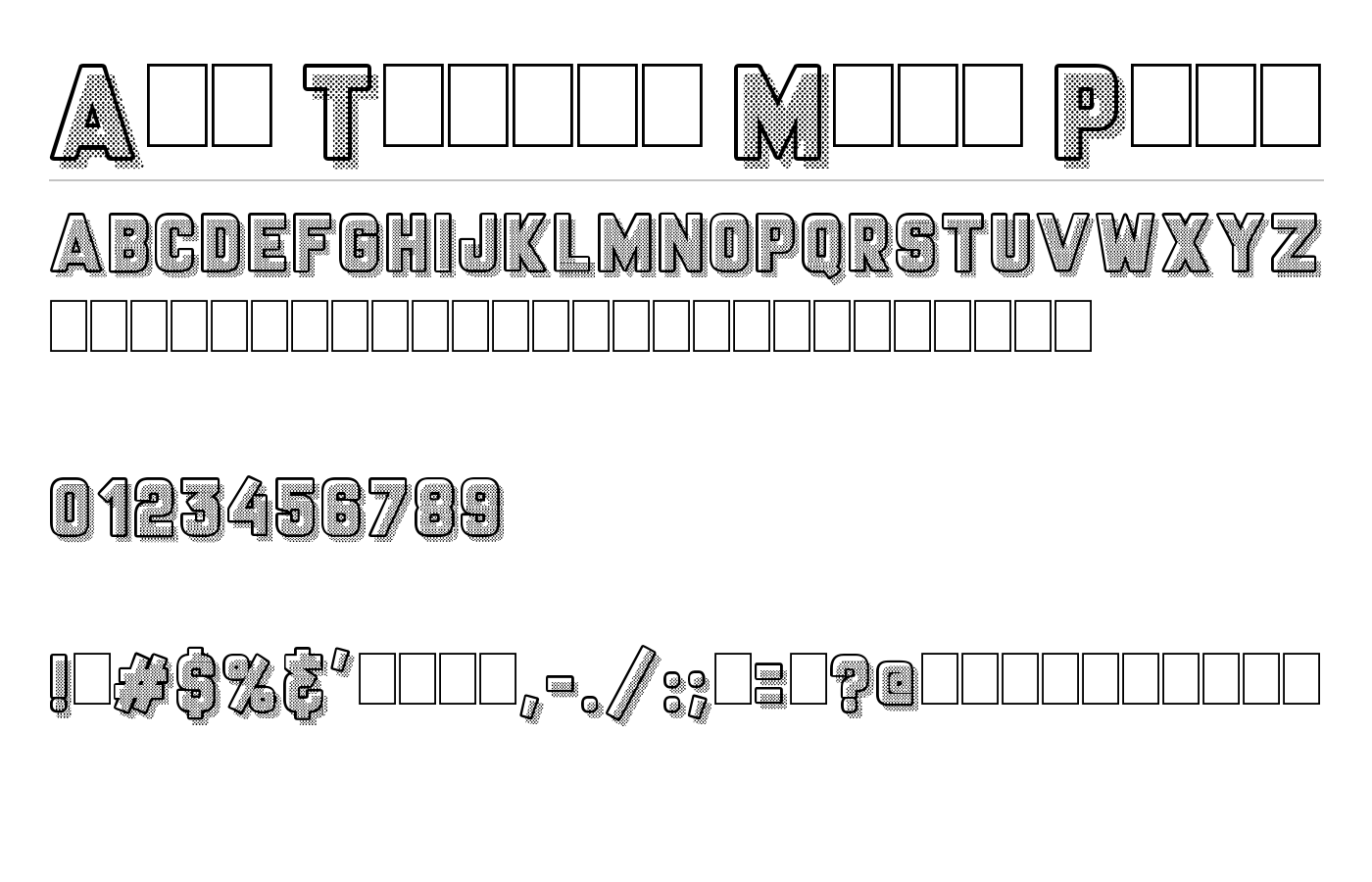
All Things Must Pass is a bold, uppercase sans serif font with a distinctive dotted shadow effect that adds depth and vintage charm. Its strong geometric letterforms and clear, even spacing make it eye-catching and perfect for creating impactful headlines or retro-style branding. This font works well in posters, logos, and packaging where a bold, playful, yet classic look is desired.
All Things Must Pass Font
About All Things Must Pass Font